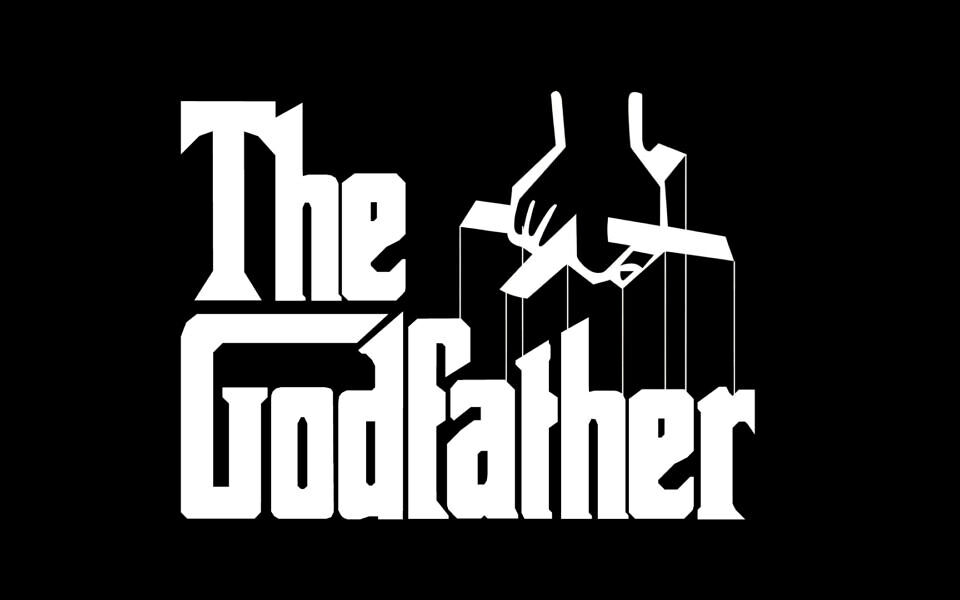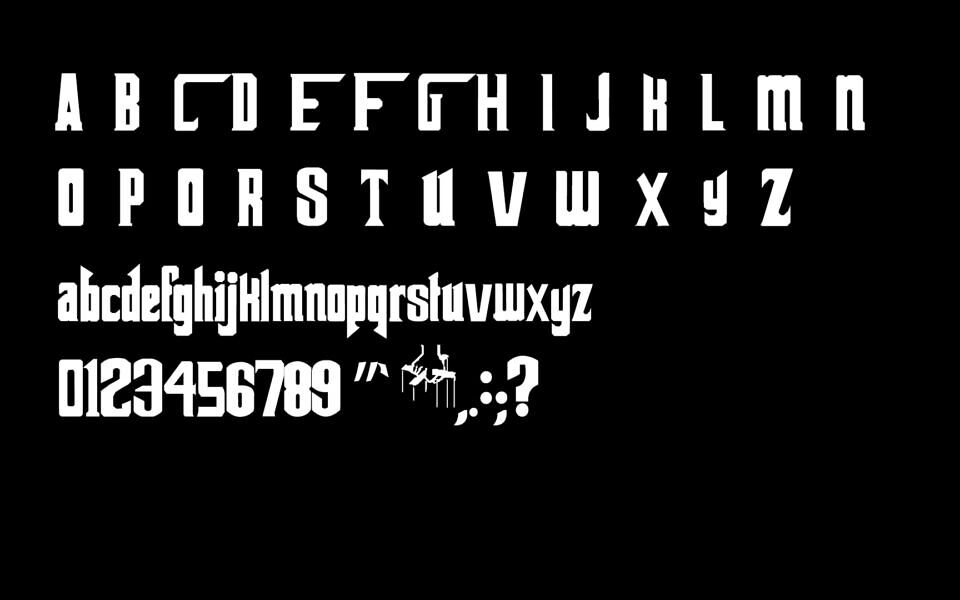
The Godfather Font
Inspired by the iconic film logo, The Godfather font delivers a bold, dramatic style with sharp, angular details and a commanding presence.
Its tall, imposing uppercase letters and stylized lowercase forms create a strong, vintage aesthetic. Perfect for headlines, logos, and posters, it evokes a classic gangster atmosphere while maintaining elegance and readability for impactful, memorable designs.
Additionally, the file contains a second variation of The Godfather logo font called Corleone, created by FontMesa LLC.